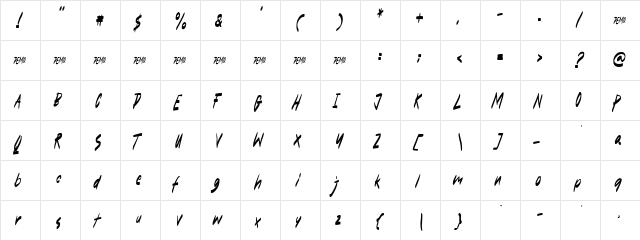
Tweets Demo Regular
| Foundry | Epiclinez |
| Designer | Aldy FS |
Design Context for Tweets Demo Typeface
Tweets Demo is a composed and adaptable typeface that performs quietly and consistently across a wide range of design contexts.